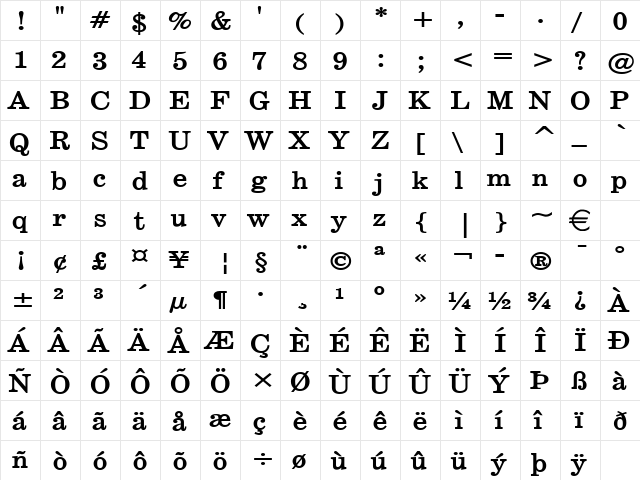
AnnualWide Bold
Design Context for AnnualWide Typeface
AnnualWide offers clean, dependable letterforms without strong stylistic allegiance, making it a practical choice for designers who need flexibility. The heavy weight commands attention and anchors typographic hierarchies.